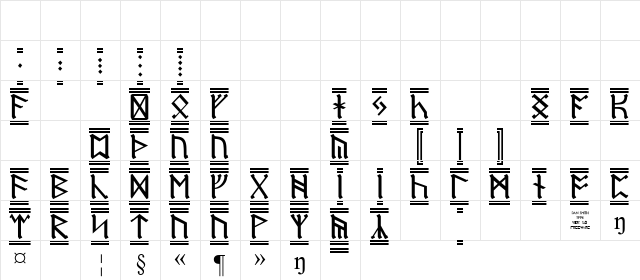
Dwarf Runes-2 Regular Font Preview
Dwarf Runes-2 Regular
Dwarf Runes-2 Regular Font Details
Design Context for Dwarf Runes-2 Typeface
Dwarf Runes-2 is a composed and adaptable typeface that performs quietly and consistently across a wide range of design contexts.